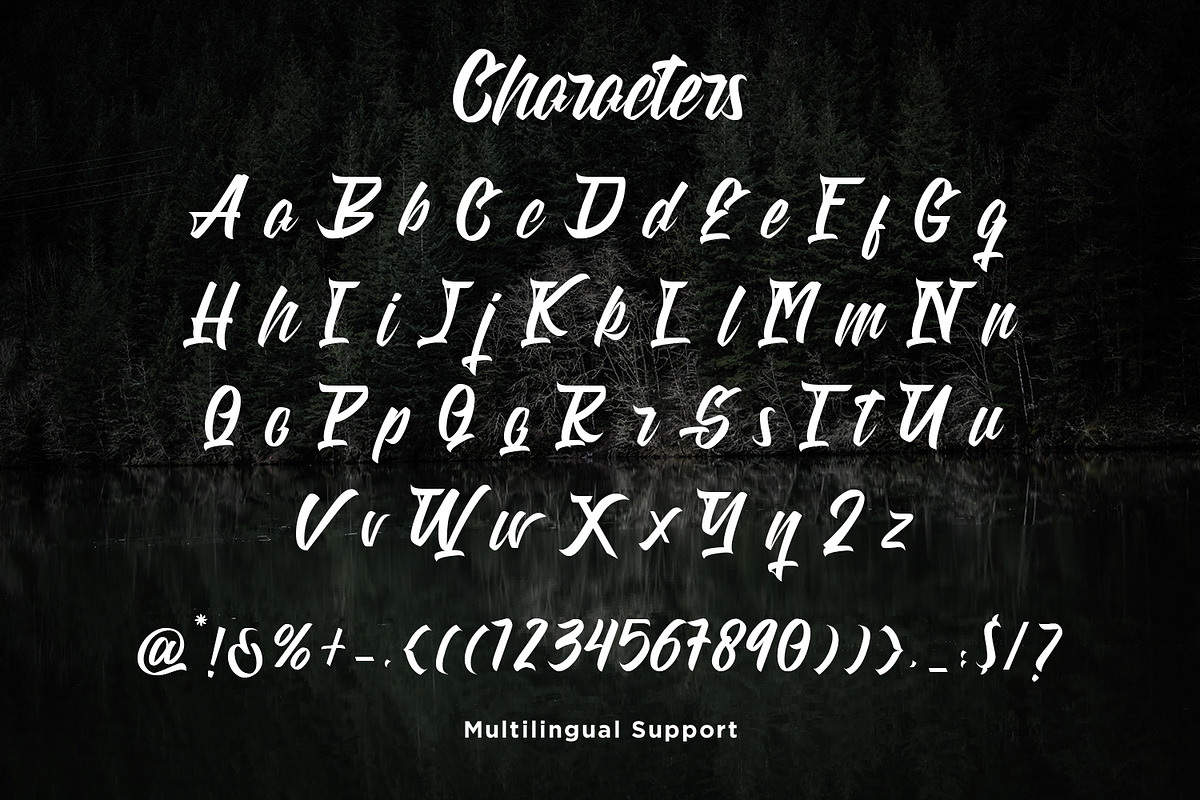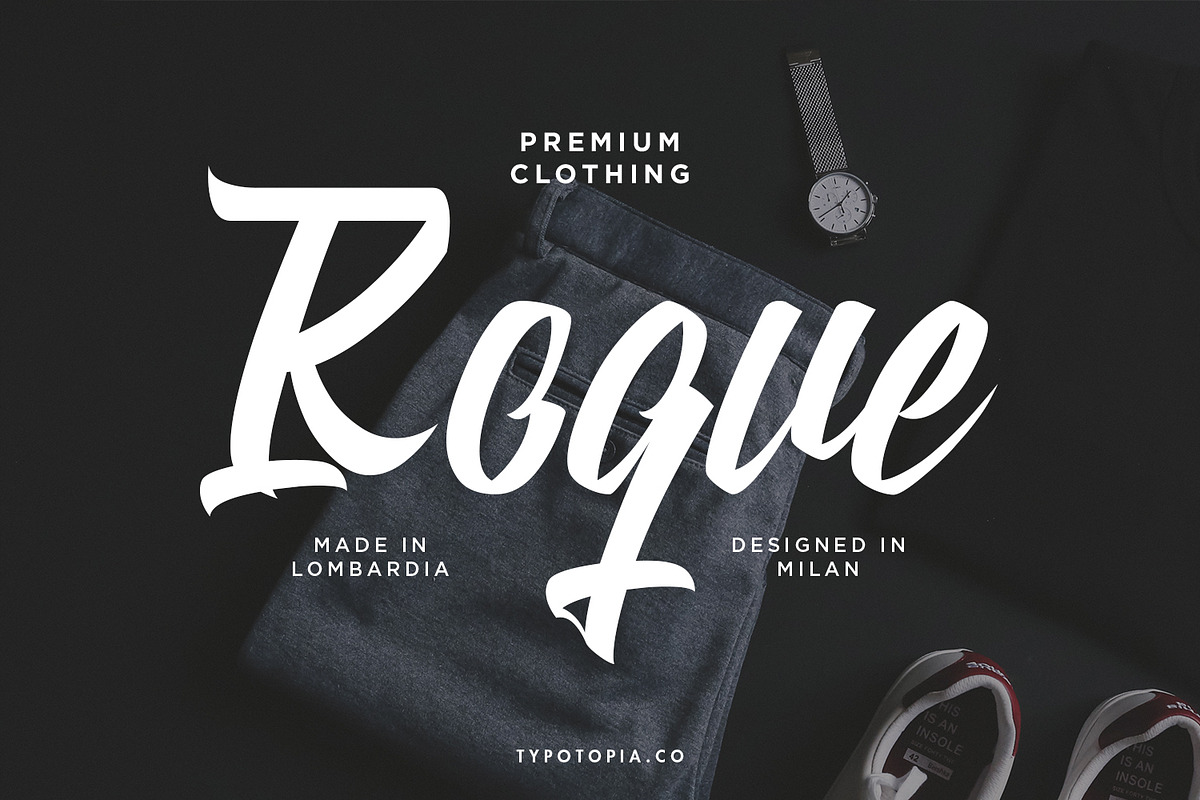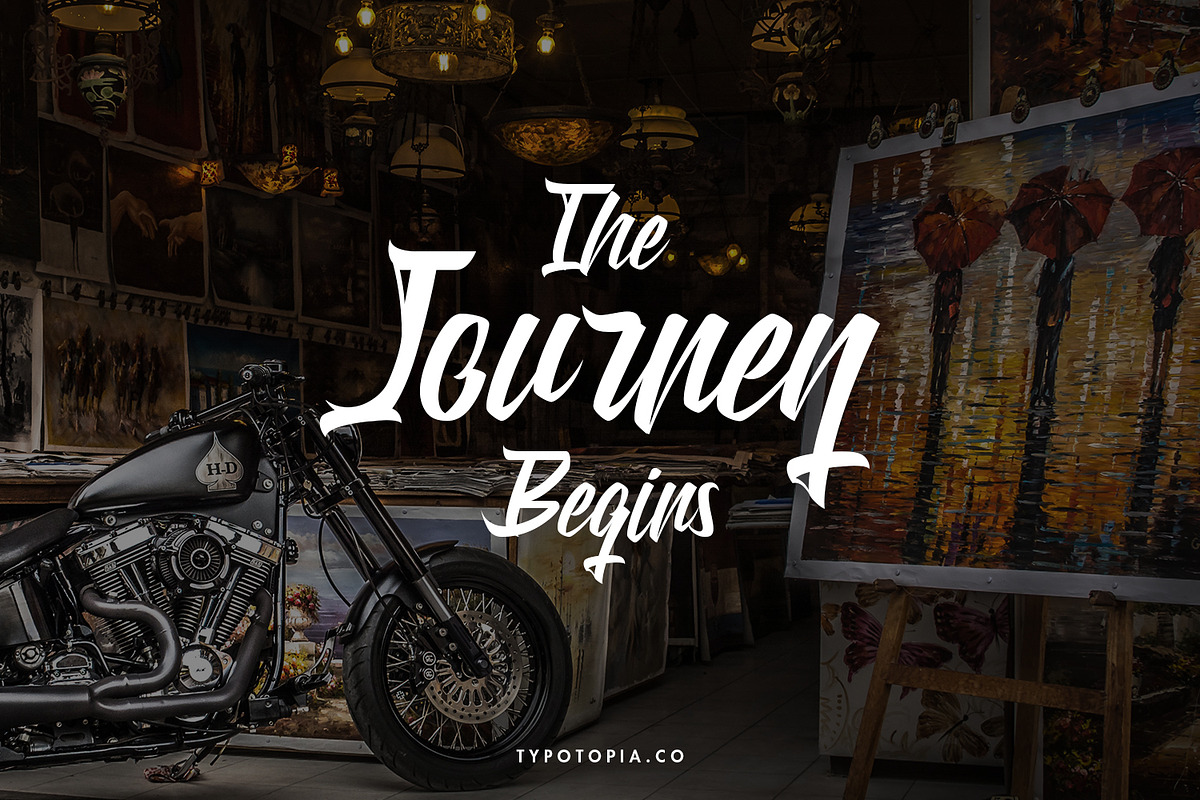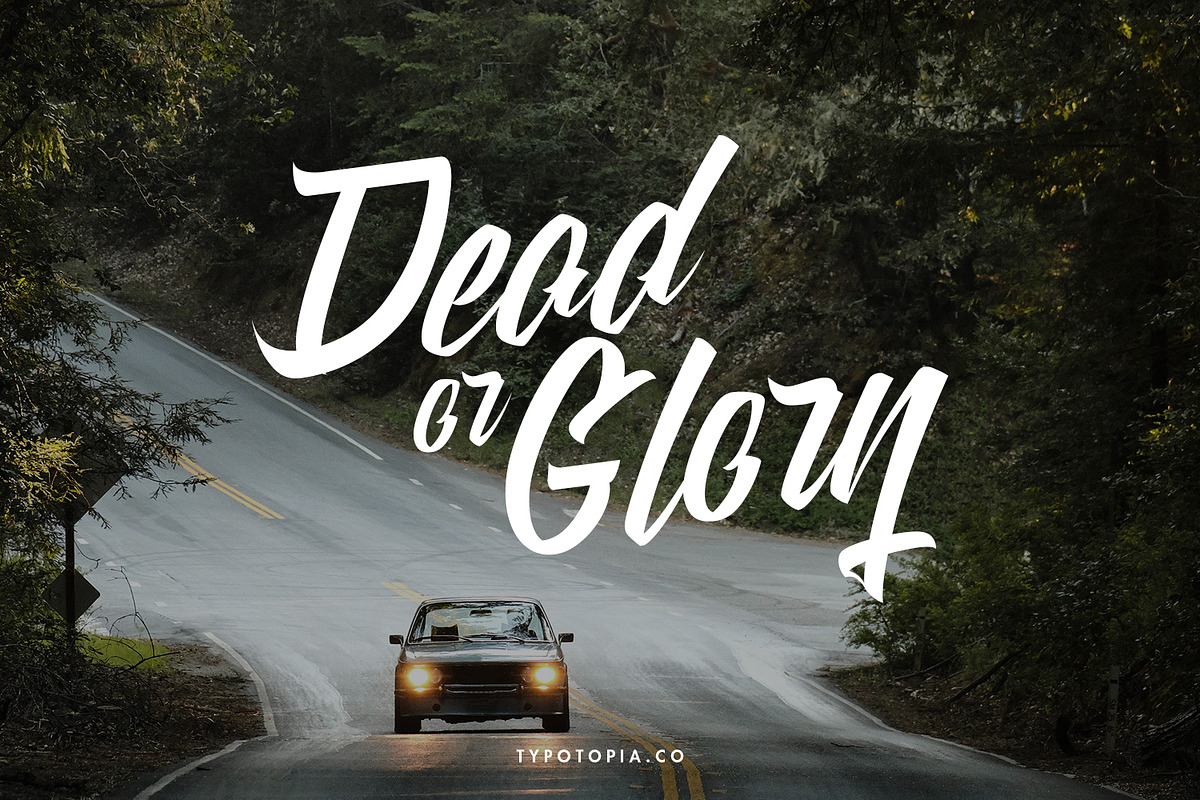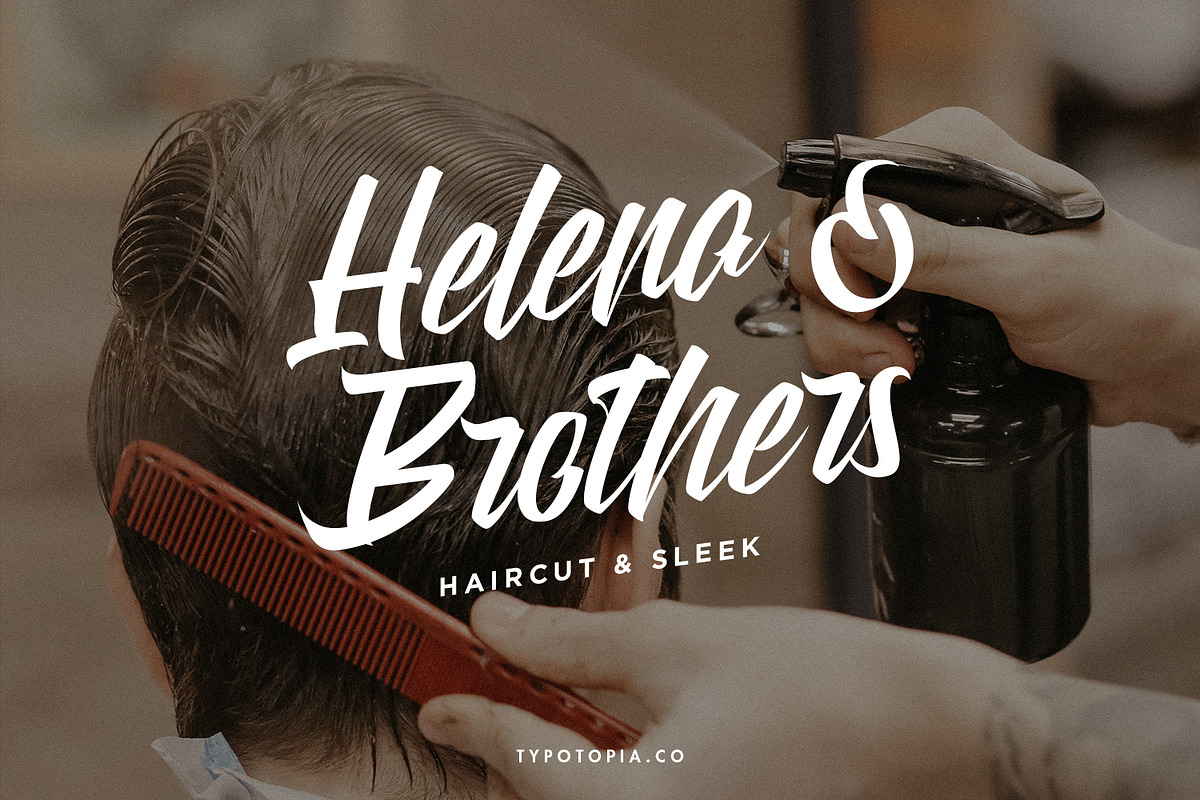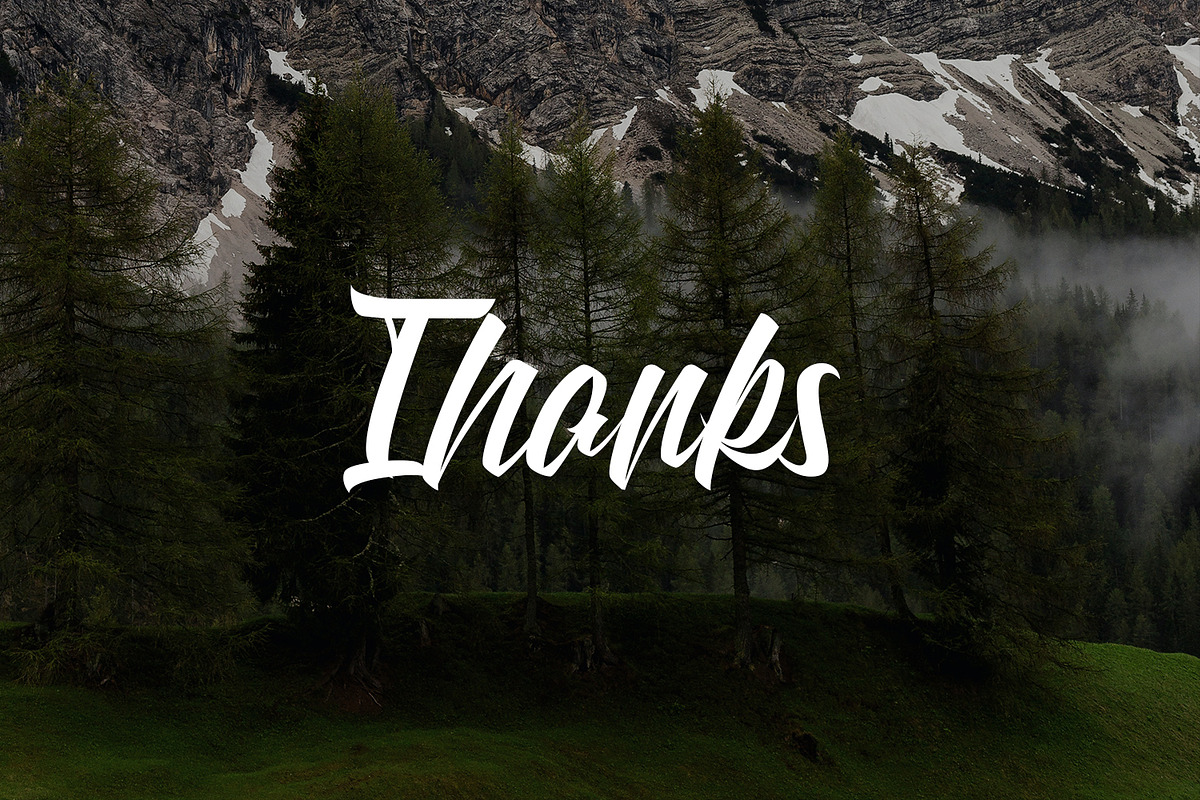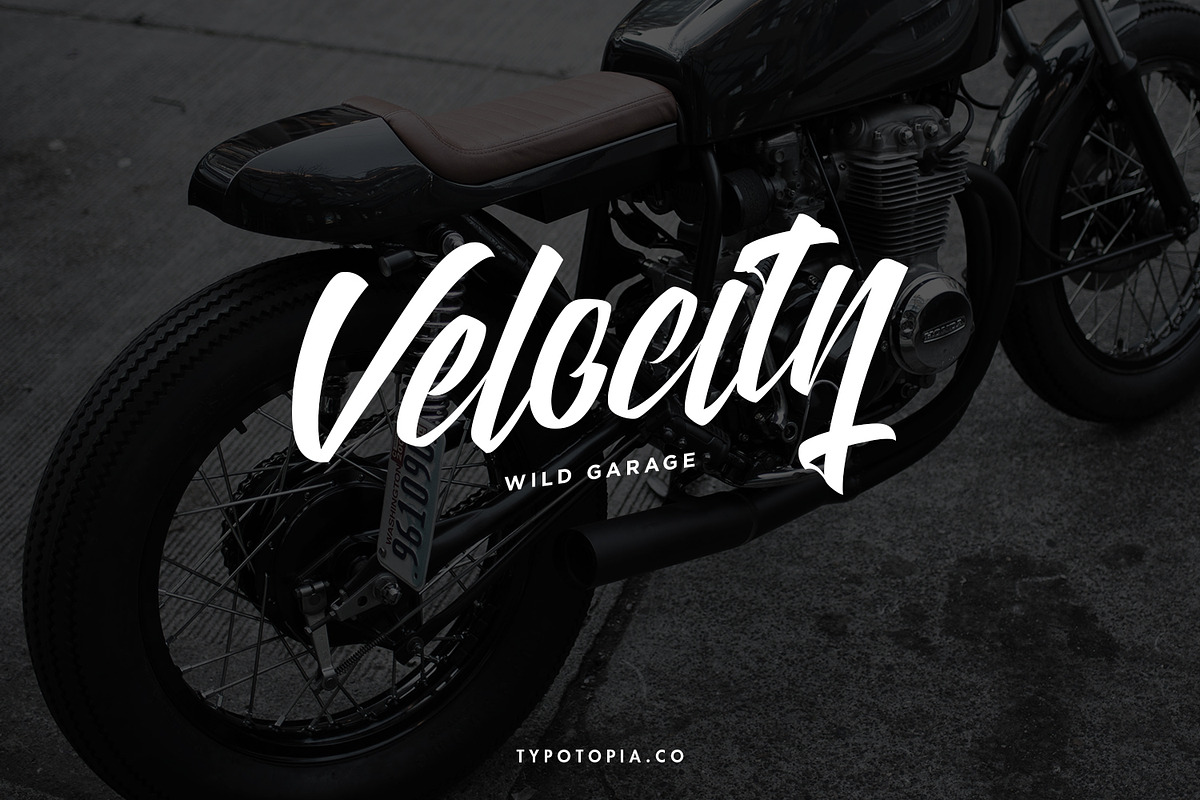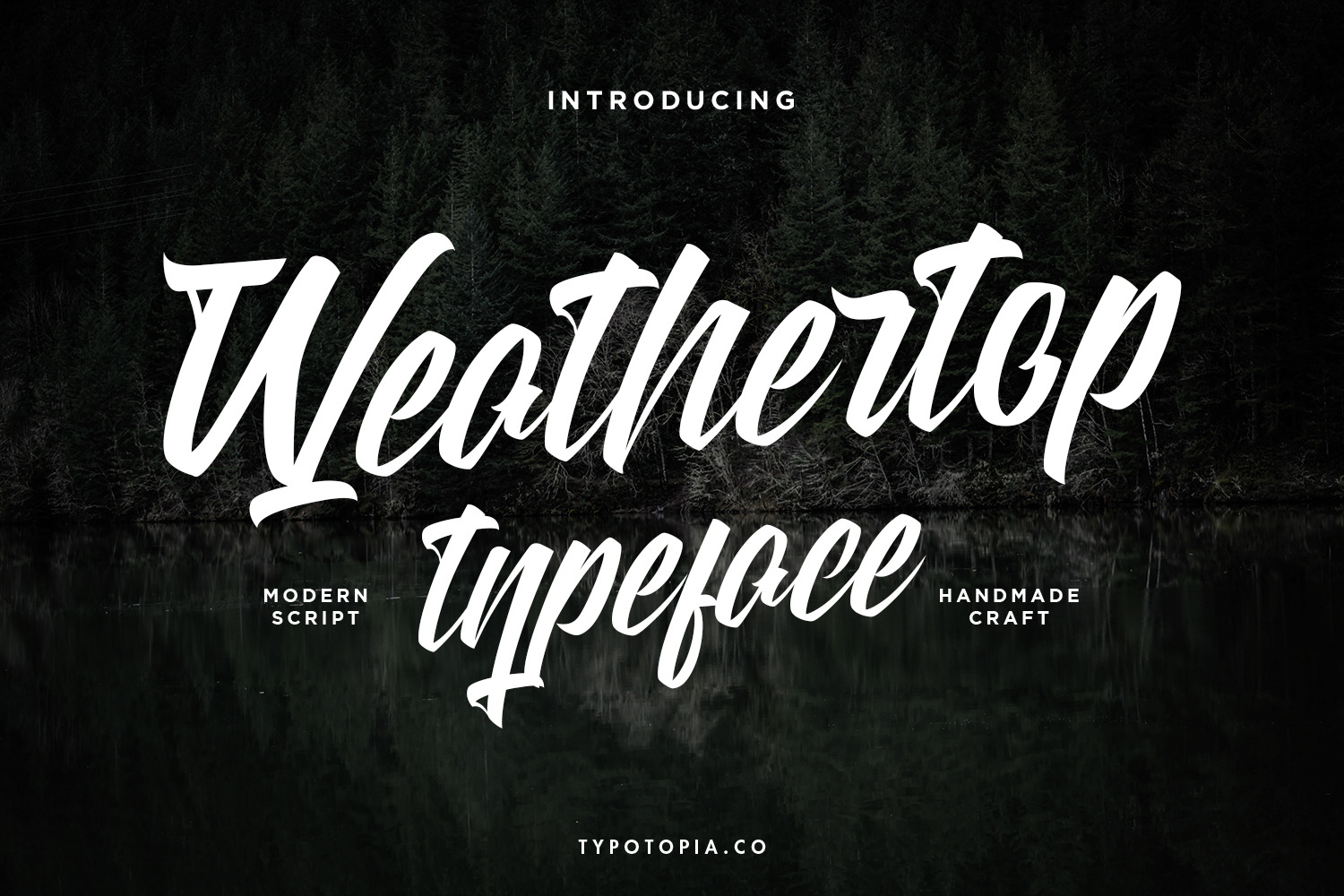
Weathertop Modern Script Typeface
Introducing, Weathertop a Stylish Modern Calligraphy Font with Casual Style!!
Weathertop is a Stylish Modern Calligraphy Font with Casual Style for your Design that is absolutely great for your next creative project such as logos, printed quotes, invitations, cards, product packaging, headers, Logotype, Letterhead, Poster, Apparel Design, Label, and etc.
This Versatile Font includes also support a Multilingual Characters. Making this Font a Swiss Army knife in your Font Library. It's extremely fun to use as each word can be transformed to your liking.
What are the main Features on This Fonts :
- Uppercase & Lowercase letters